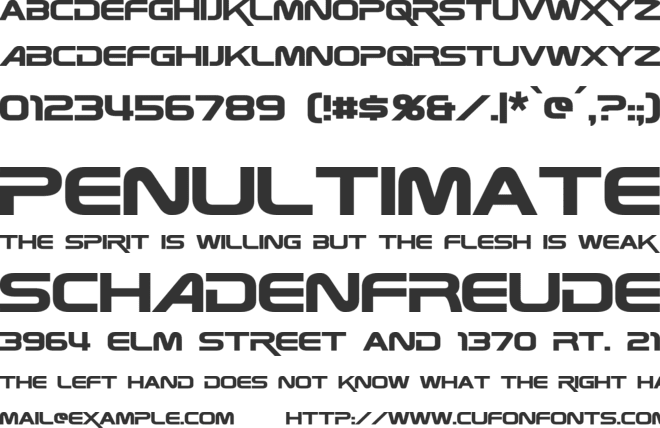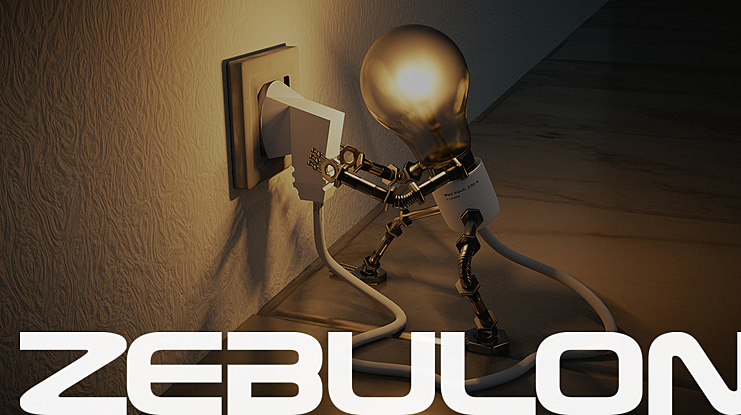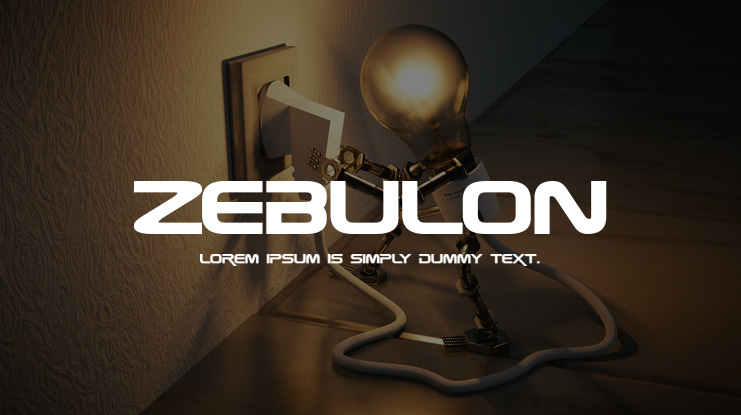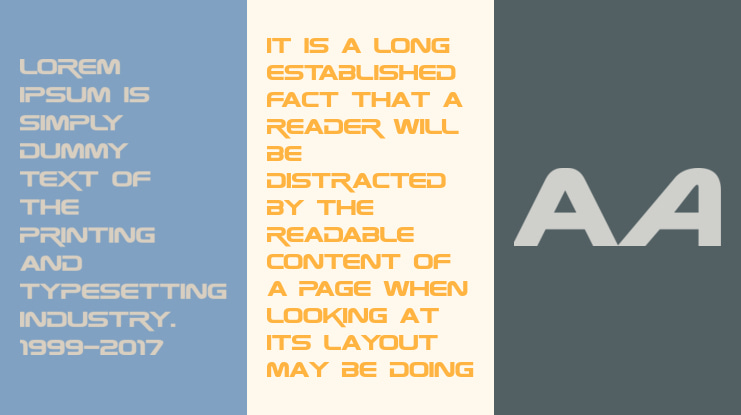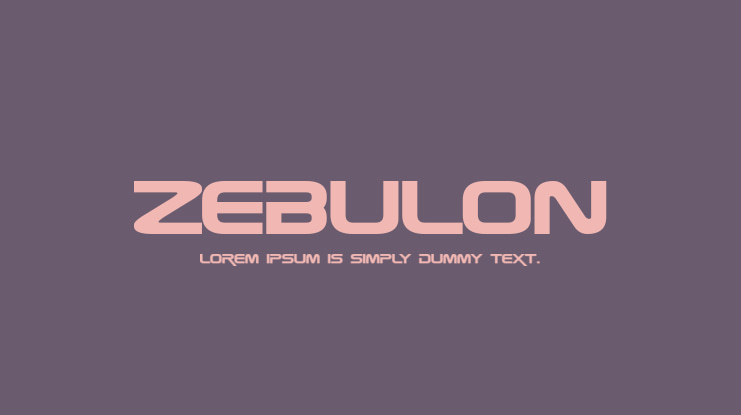
Zebulon Font Family
Neale Davidson
Zebulon is a science-fiction themed face based on the title logo of TSRs classic Star Frontiers game series. Includes full alphabet, extended characters, Euro. Includes condensed, bold, italic, bold-italic.